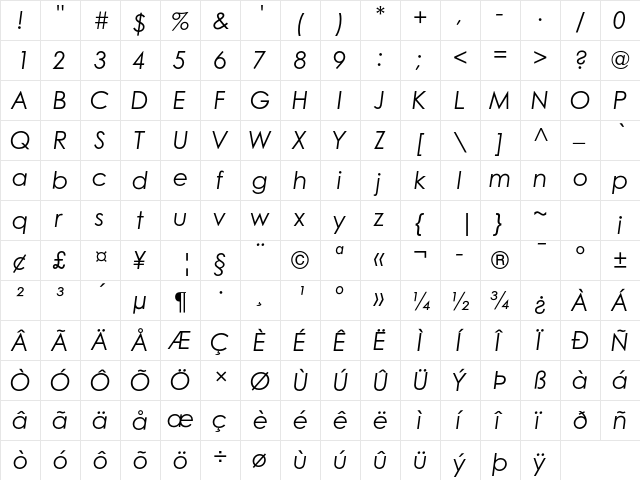
Century Gothic Std Italic Font Preview
Century Gothic Std Italic
Design Context for Century Gothic Std Typeface
Century Gothic Std takes a clean, functional approach — its unadorned letterforms prioritise legibility and work reliably across screen and print environments. The dynamic lean of this cut emphasises speed and emphasis in any layout.
Font Pairing: Works well alongside a characterful serif or display font that can carry the expressive load while Century Gothic Std handles the functional copy.
Pro Tip: Pair Century Gothic Std with a display or serif font for headlines — its neutral character makes it an excellent supporting player in complex typographic systems.